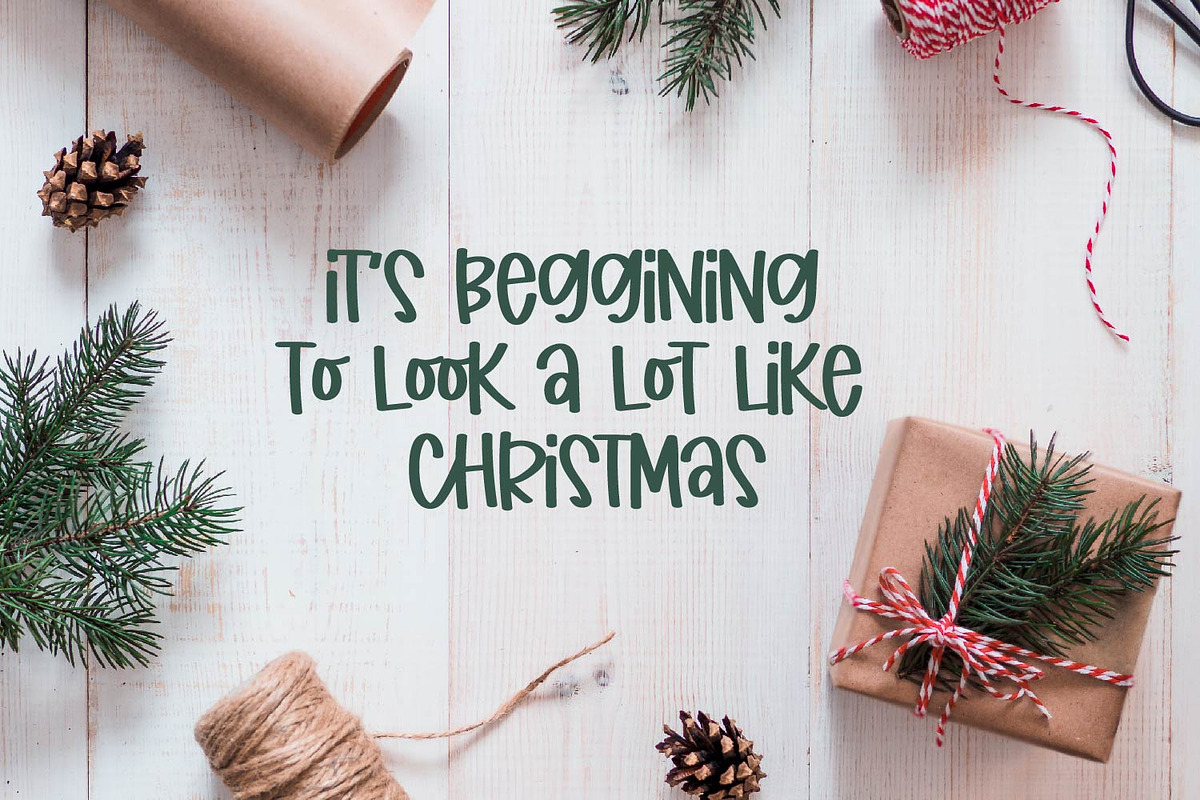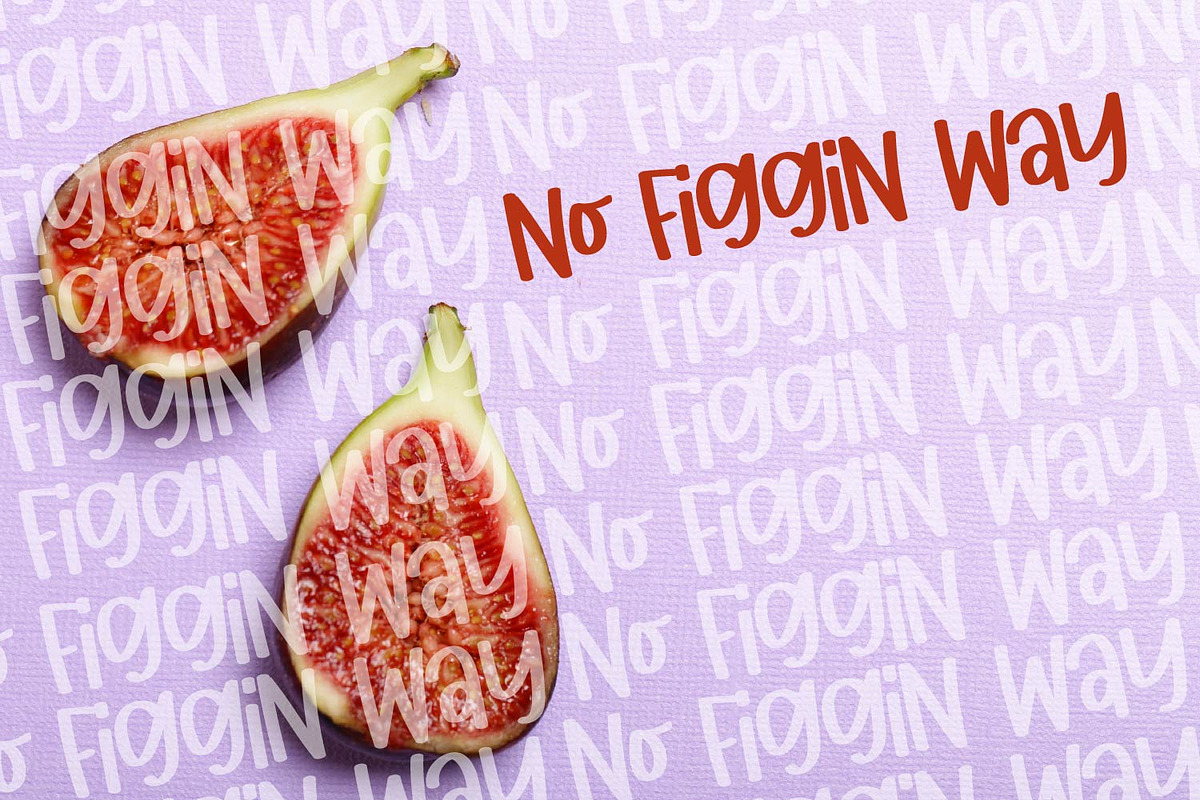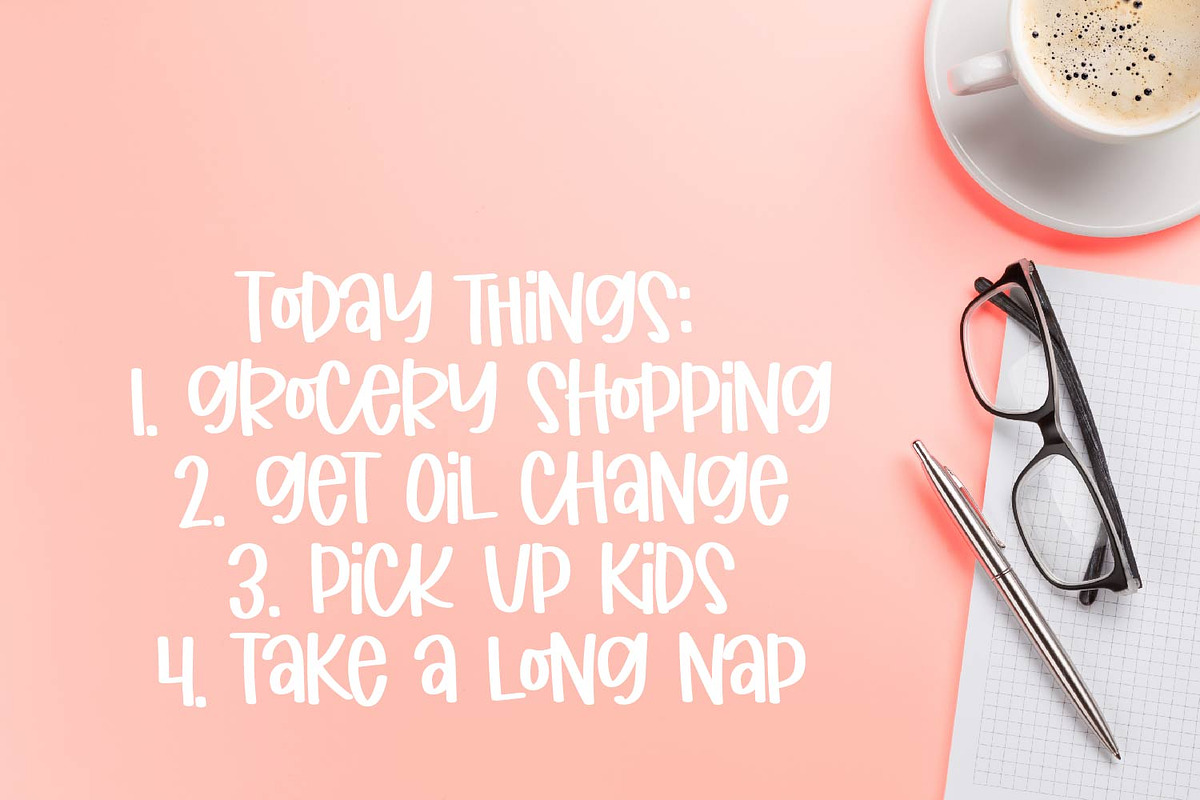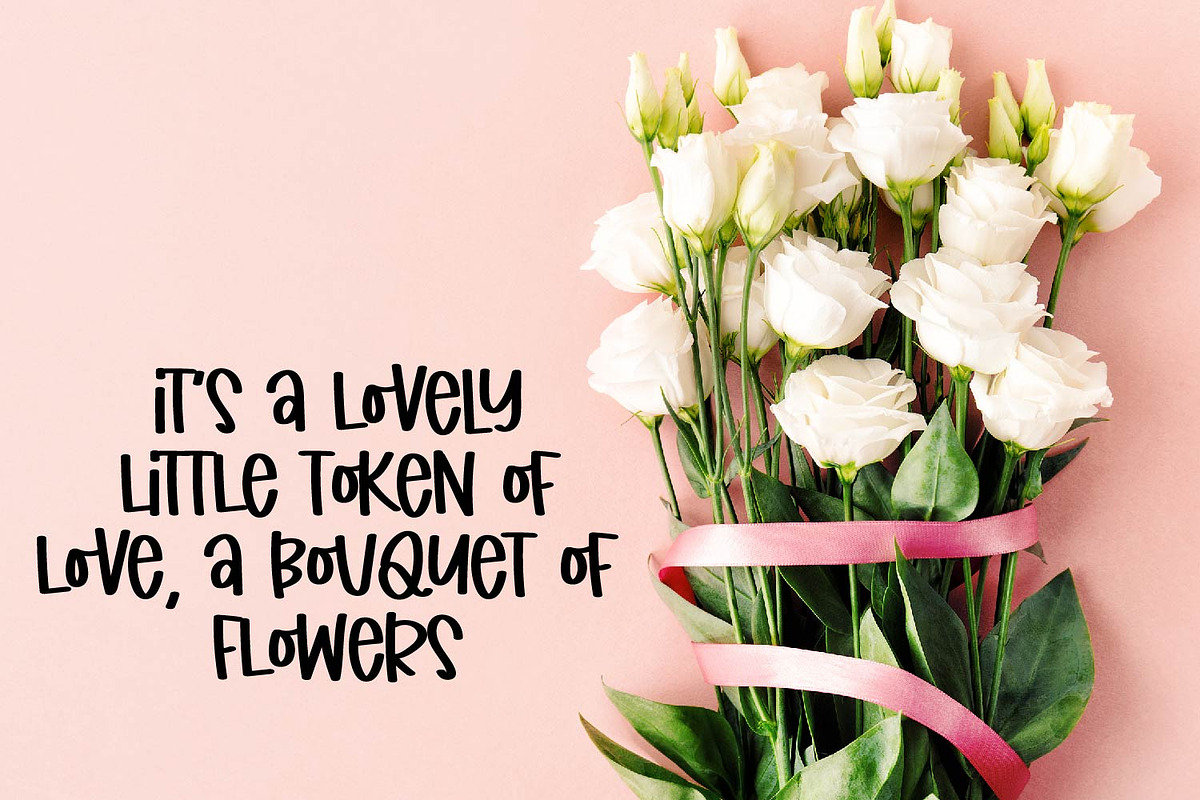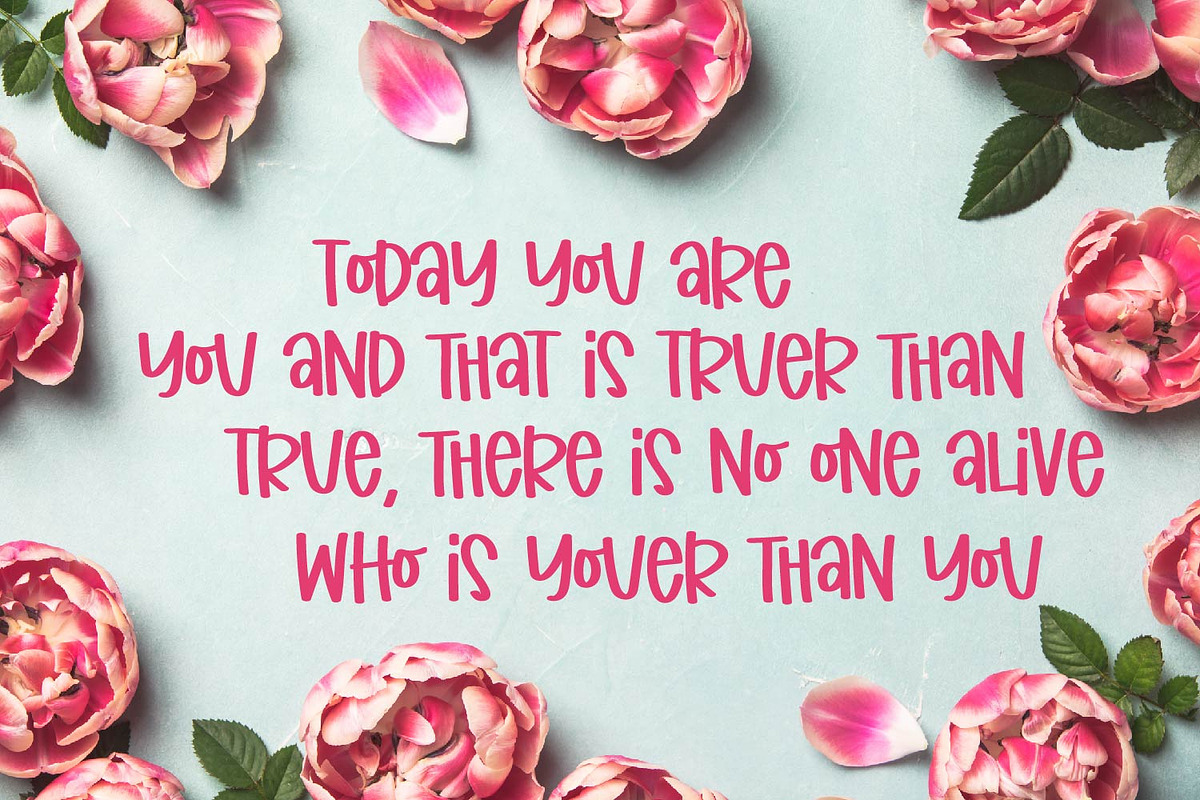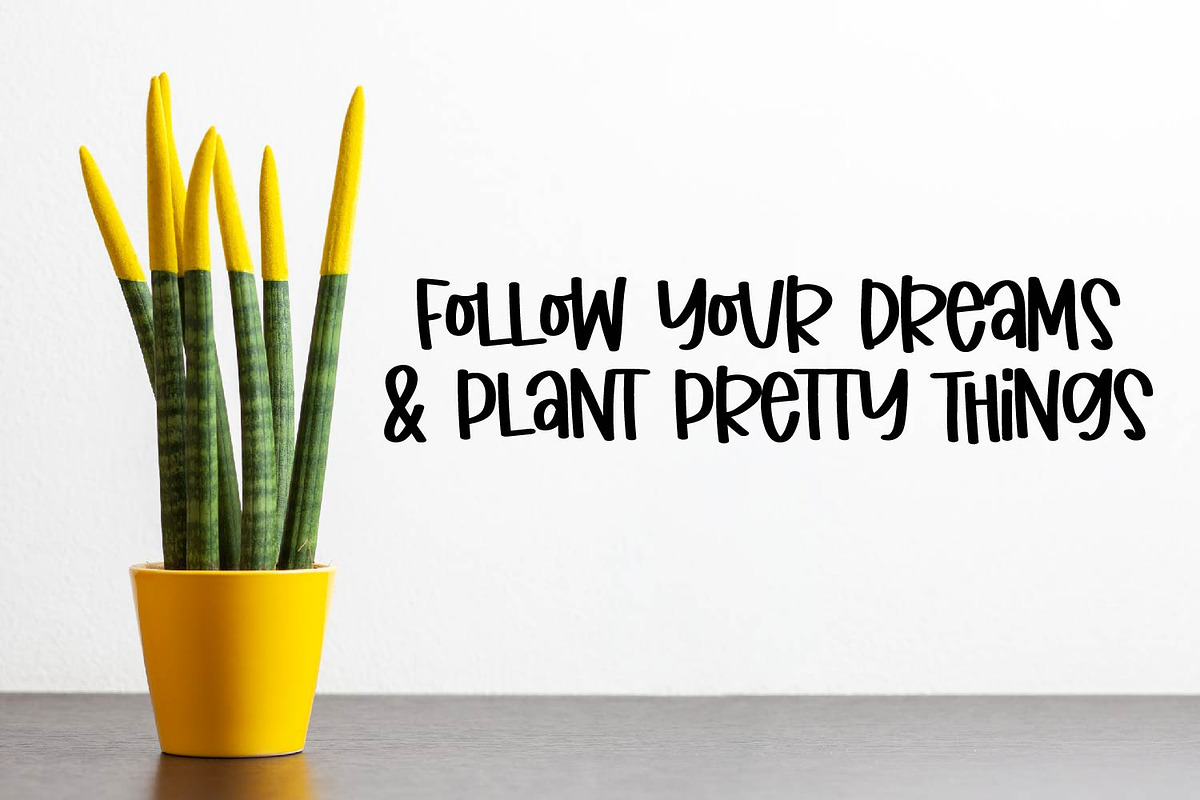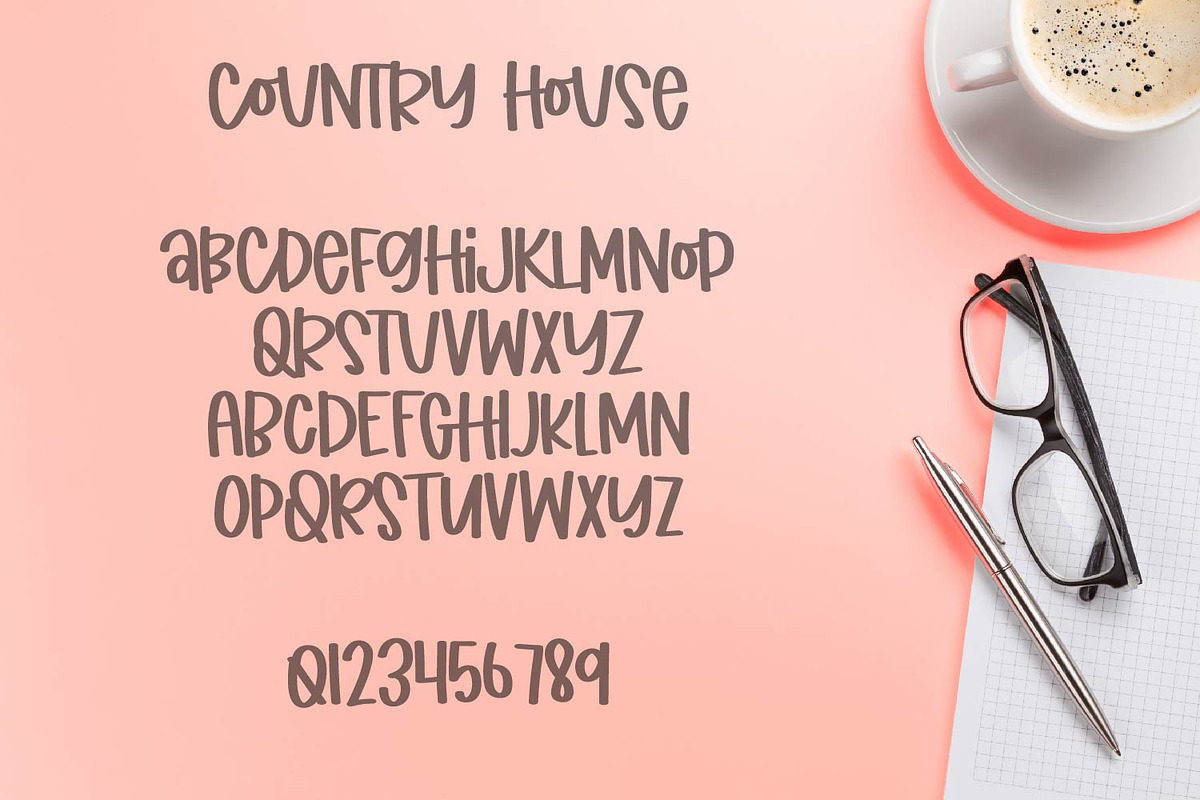
Country House - A Clean Marker Font
Country House A Clean Marker Font by CraftyLittleNodes is a font selected for branding, posters, packaging, typography.
Why Country House - A Clean Marker Font is worth a look
Country House - A Clean Marker Font by CraftyLittleNodes fits naturally into Branding, posters, packaging, typography.